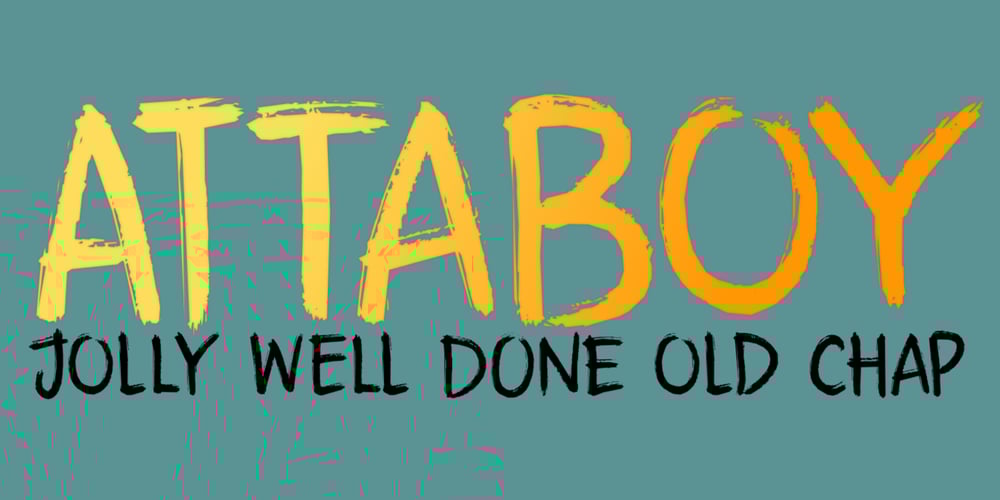
Attaboy Font Family was designed by David Kerkhoff and published by Hanoded. Attaboy contains 2 styles and family package options. Attaboy is a posh word for ‘well done’. It was made with a broken marker pen to give it that ‘eroded’ look. It is an all caps typeface, but upper and lower case can be mixed. Attaboy comes with stylistic alternates for the lower case glyphs and all the diacritics you need.